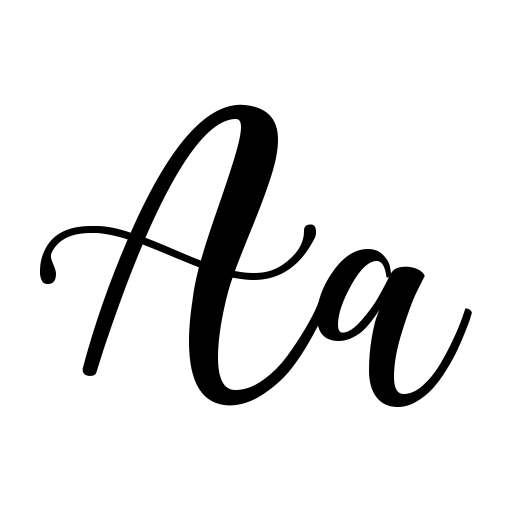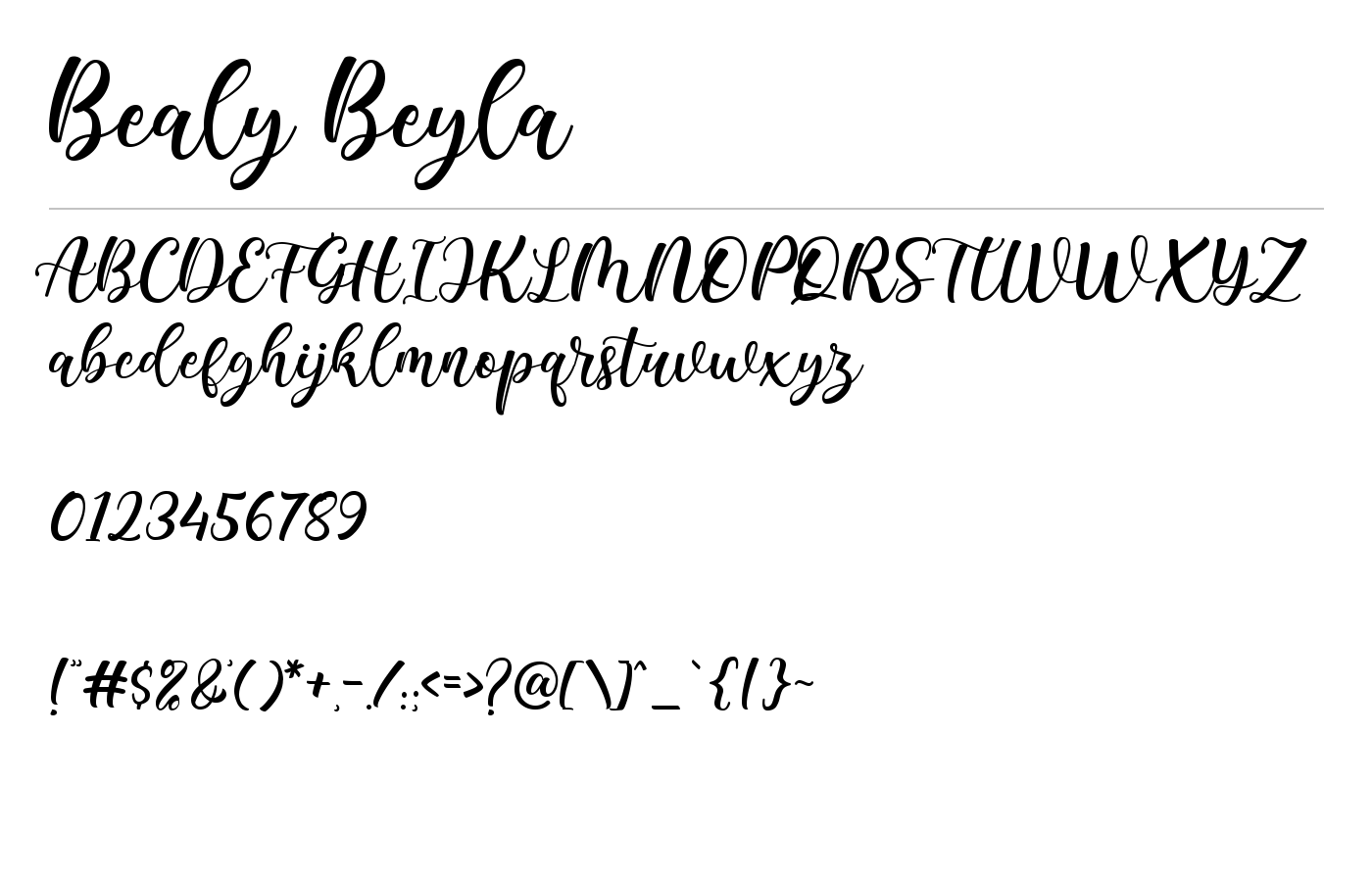
Bealy Beyla is a stylish script font with a smooth, flowing design that balances elegance and approachability. Its strong, moderately high contrast strokes and playful yet refined letterforms make it ideal for branding, invitations, and creative projects that seek a personal yet polished feel. Perfect for logos and headlines, this font adds a charming, handwritten touch without sacrificing readability.
Bealy Beyla Font